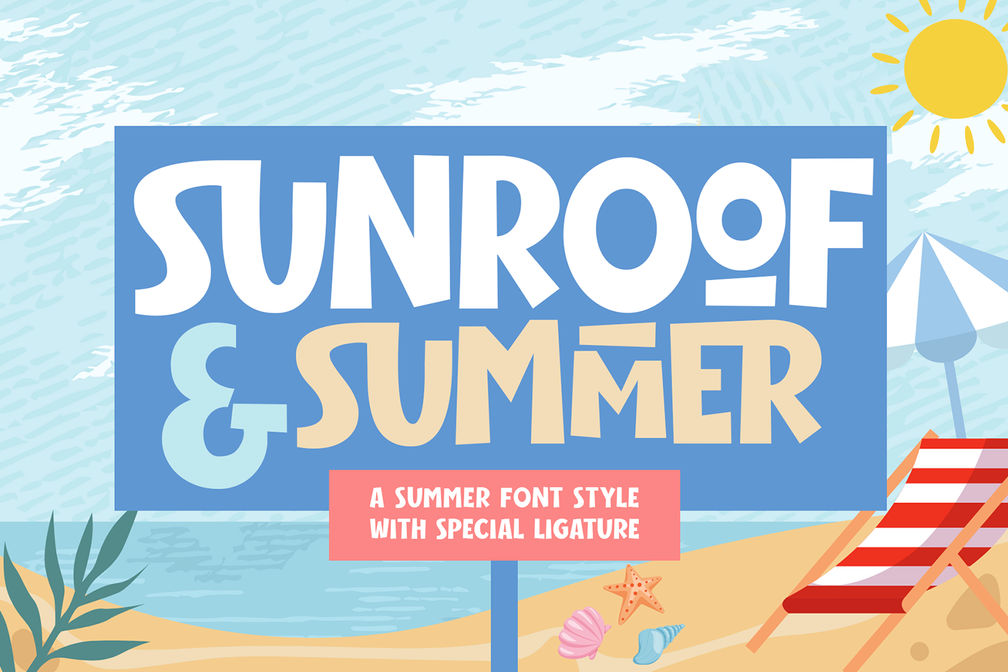
Sunroof & Summer
Sunroof & Summer Font is a summer Style font by Wildan Type. It has simple, fun, and sweet look. Sunroof & Summer font is perfect used for; logos, greeting cards, a package design, a brand identity, craft design, any DIY project, book title, packaging,
Sunroof & Summer font is a summer style font. we make special for kid’s font with a simple style but has a modern impression to your project.
** Features:**
- Multilingual
- Number
- Uppercase & Lowercase Punctuation
- Ligature